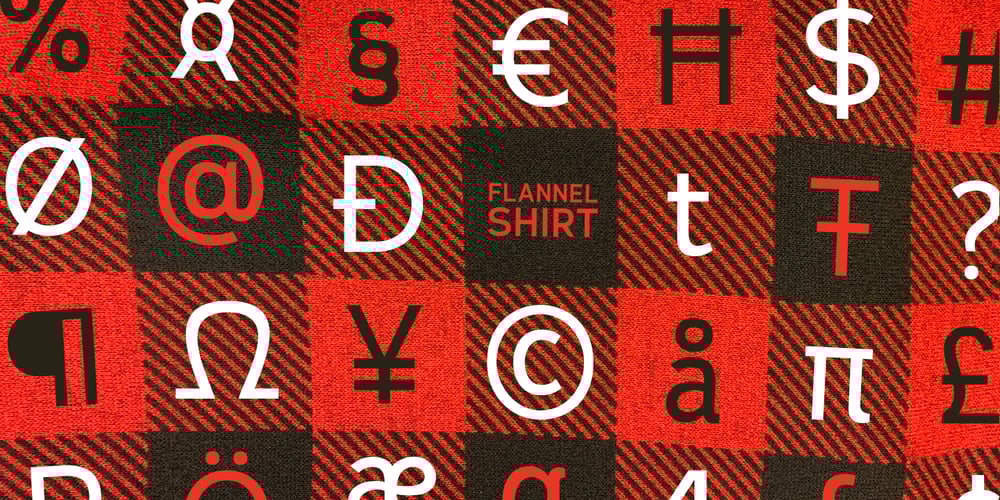
Flannel Shirt BB
Flannel Shirt BB font
Flannel Shirt BB Font Family was designed by Nate Piekos and published by Blambot. Flannel Shirt BB contains 4 styles and family package options. Flannel Shirt BB is a body copy font that’s warmer and cozier than most– perfect for curling up with a laptop on a blustery New England “Nor’Easter”. Flannel Shirt BB comes with four wintery weights, and has a hefty compliment of special characters.